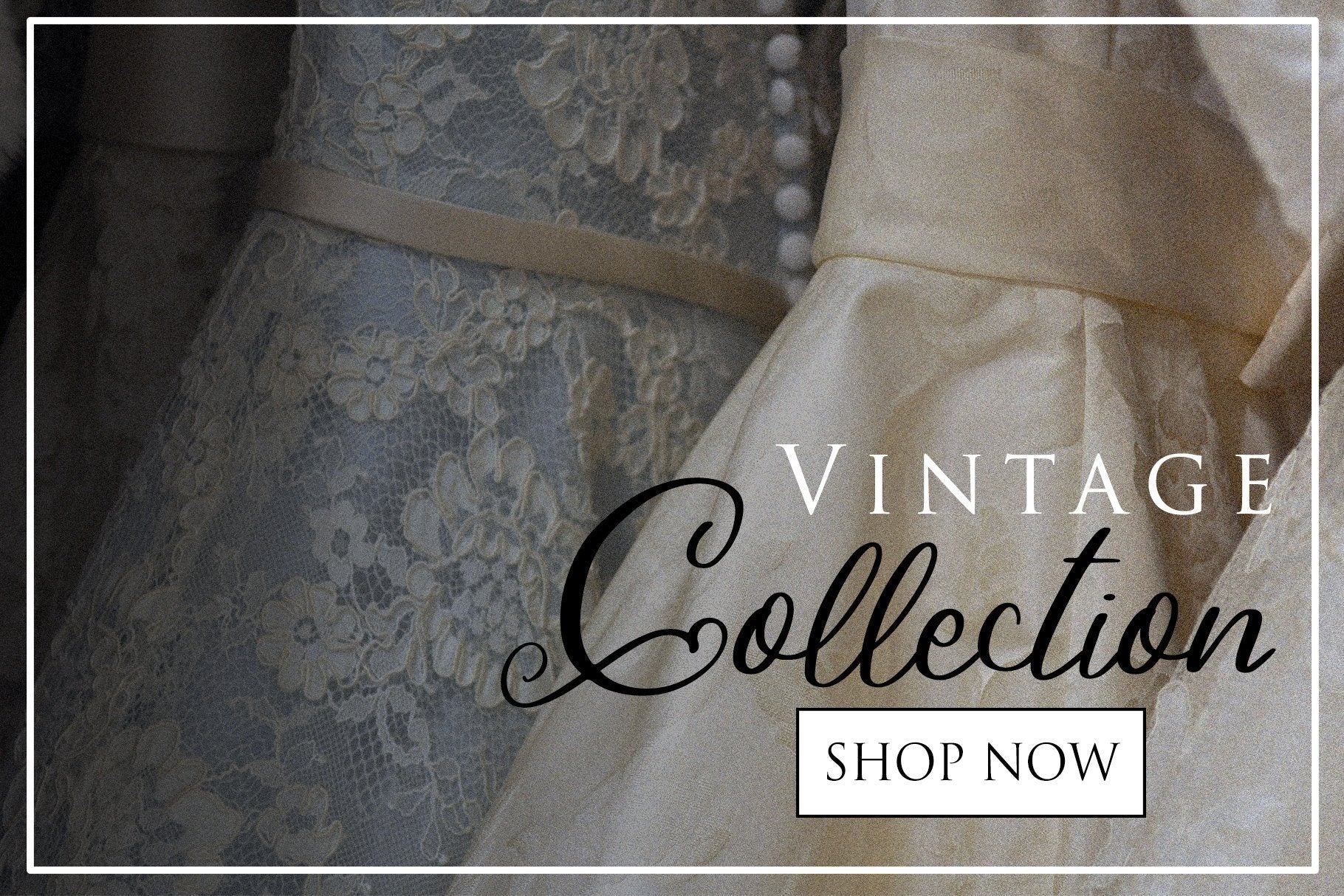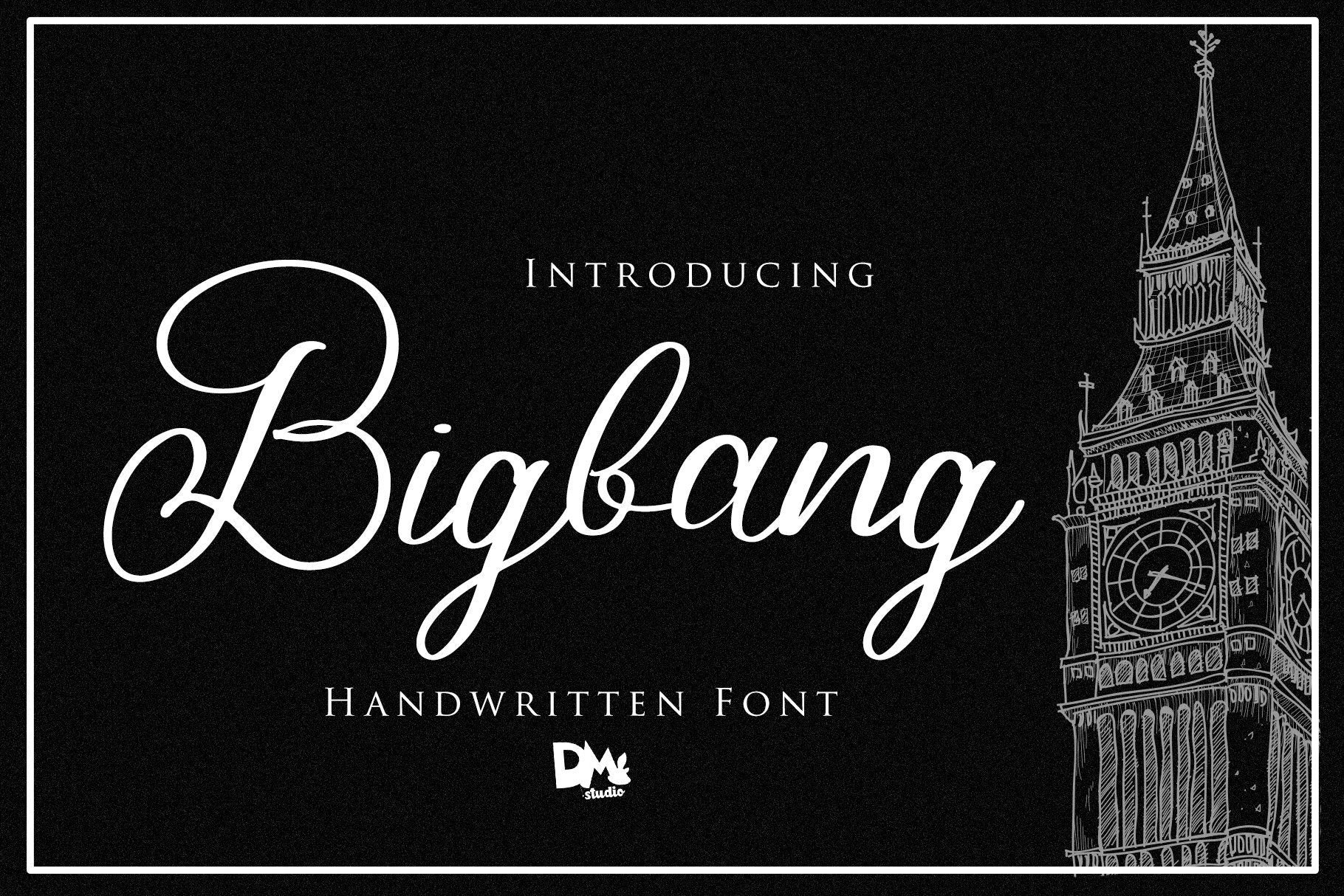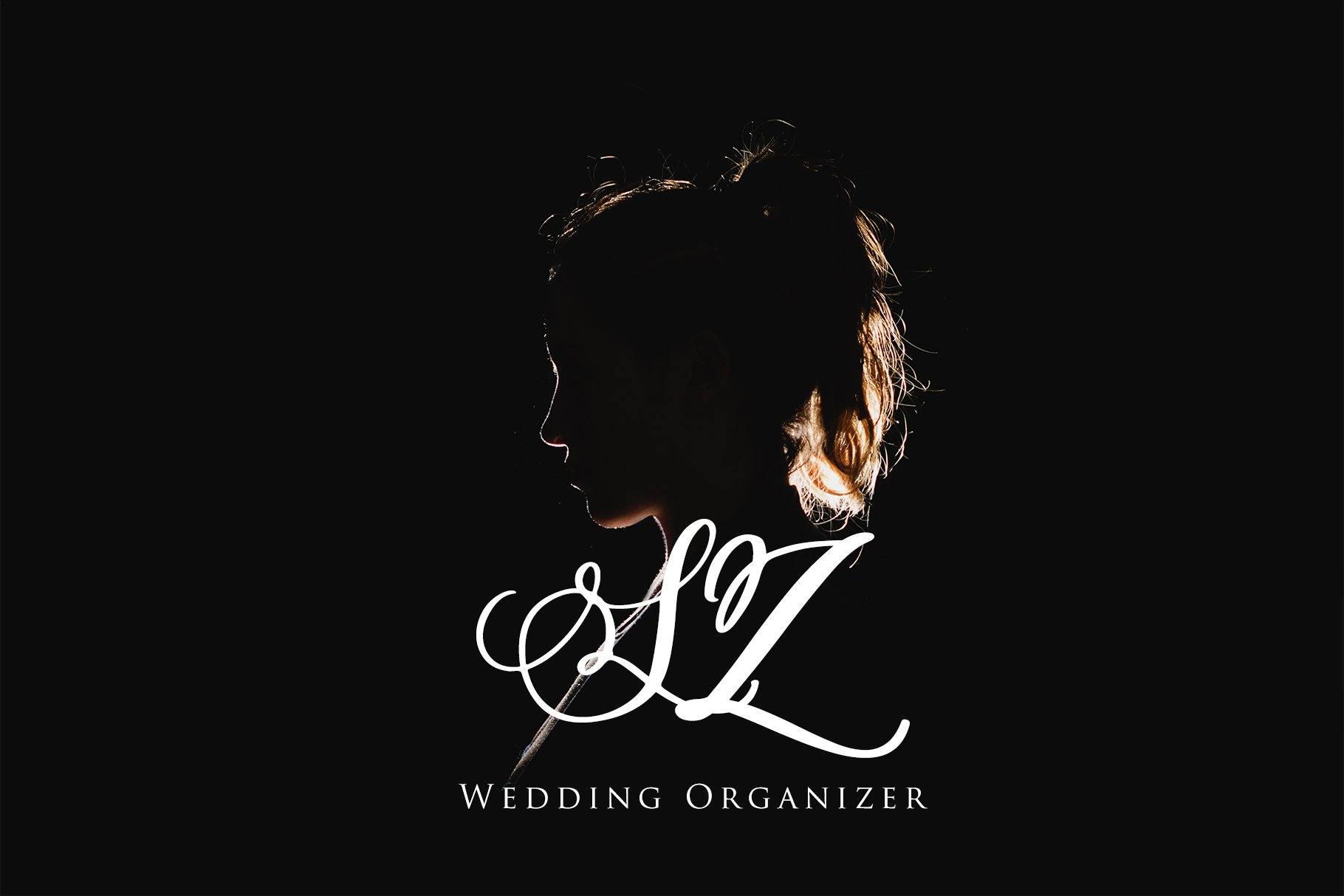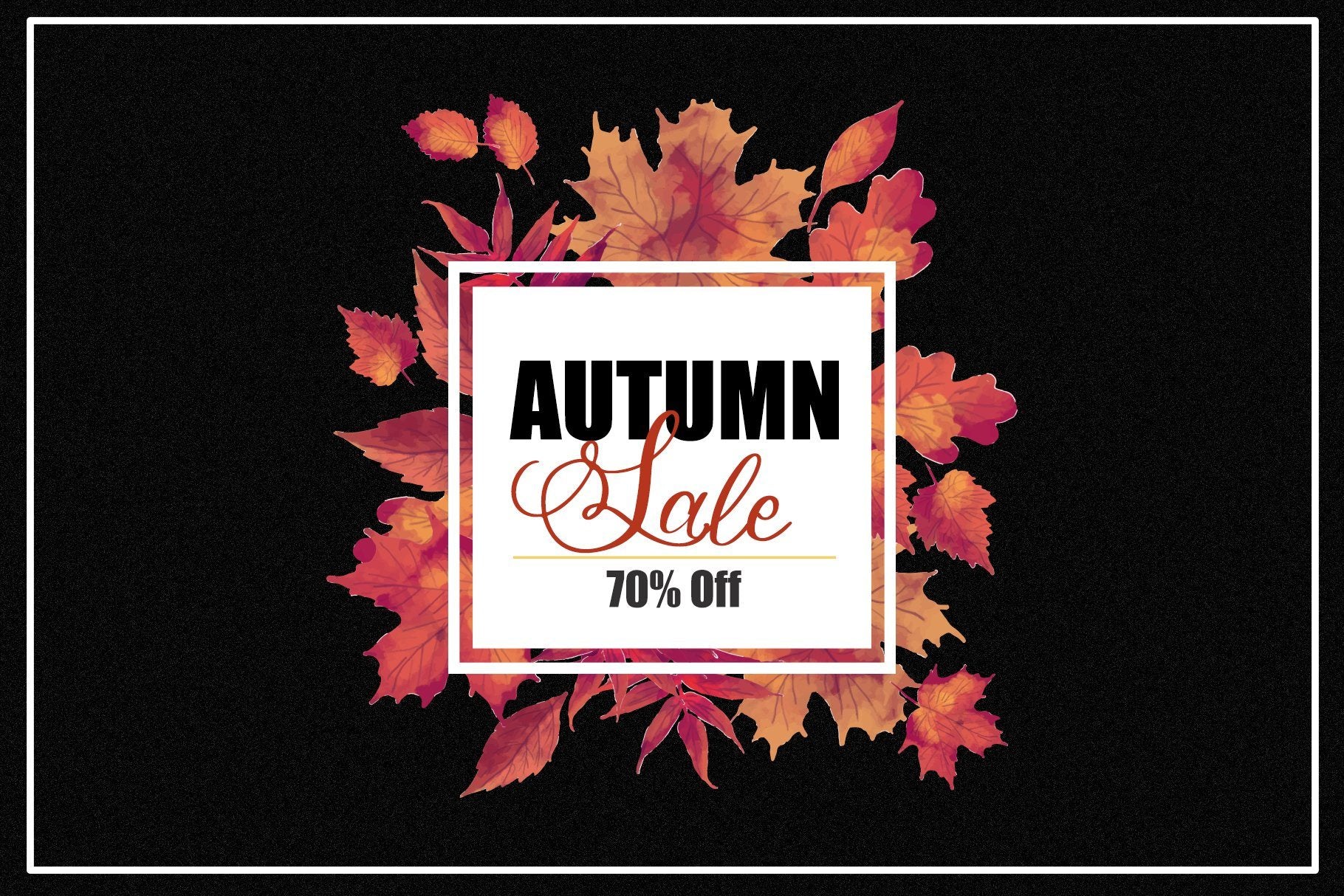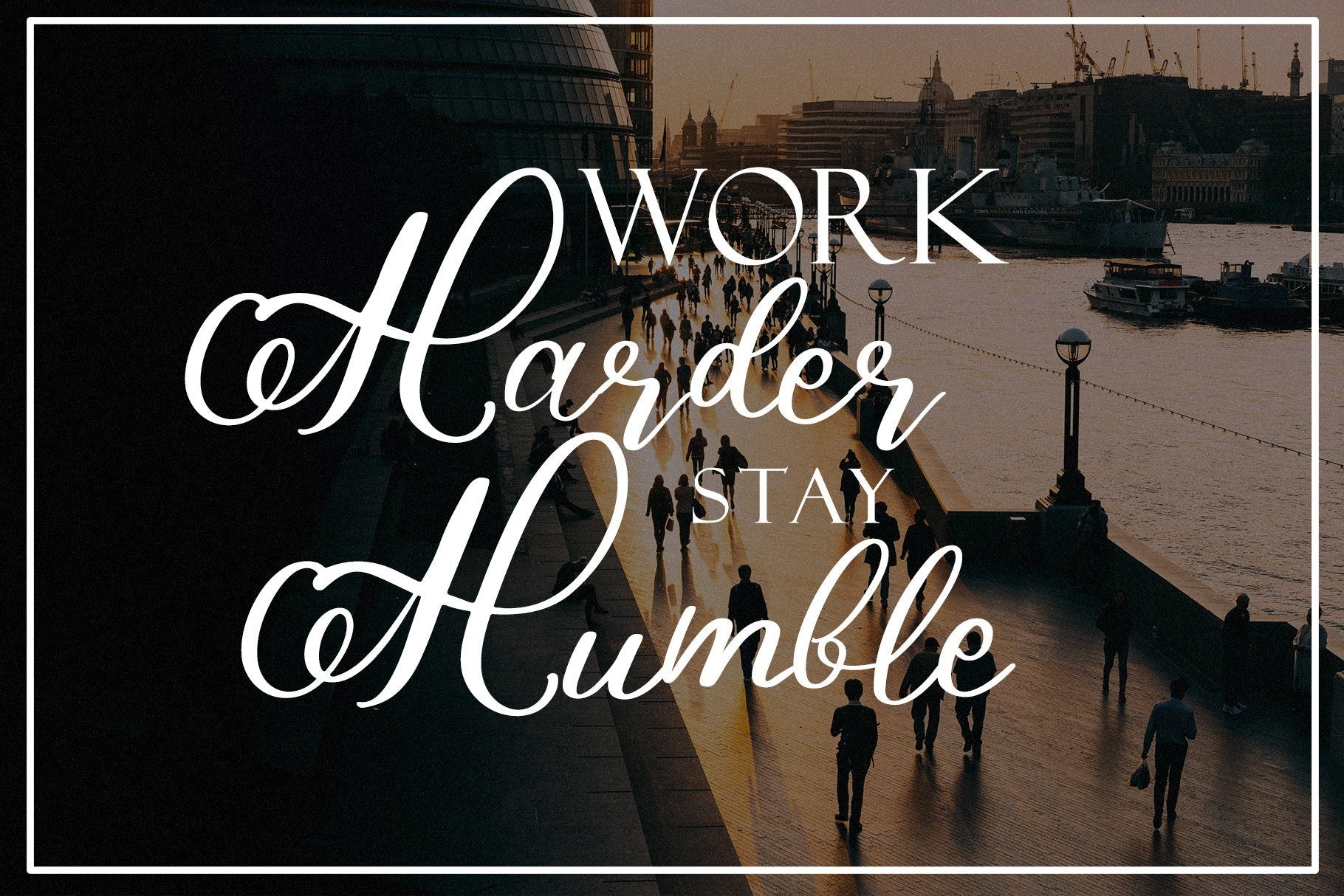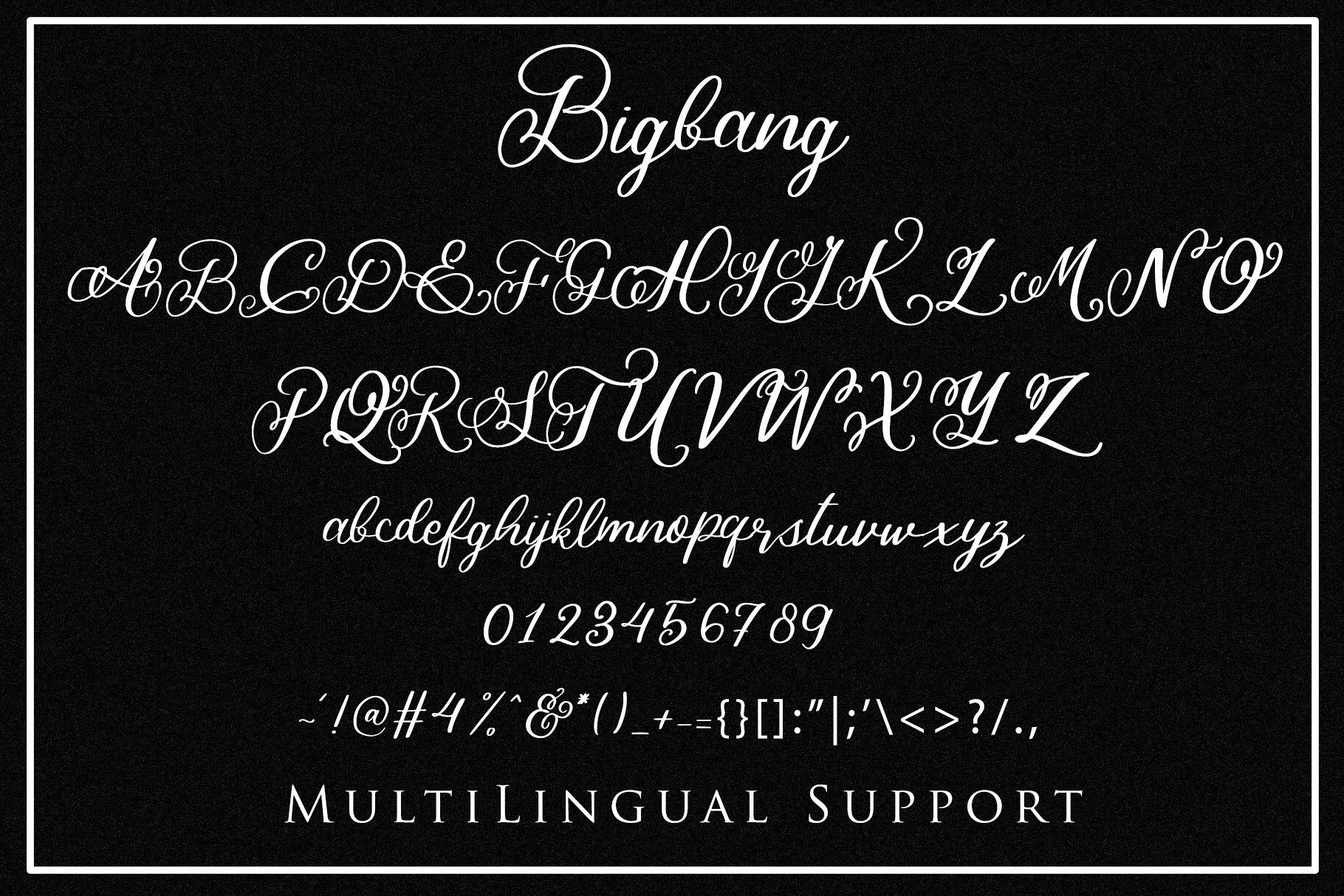
Bigbang – Handwritten Font
Introducing, BigBang Handwritten font It’s a modern and natural script font inspired by vintage style of handwritting. It’s unique, quirky yet still classy. Great choice for card, invitation, website, quote, promotion, monogram logo and much more. Including UPPERCASE, lowercase, numeric and symbols Support multilingual Files : Bigbang OTF, TTF, WOFF Thanks for every support, please message us if you have any question or inquiries. Happy designing!